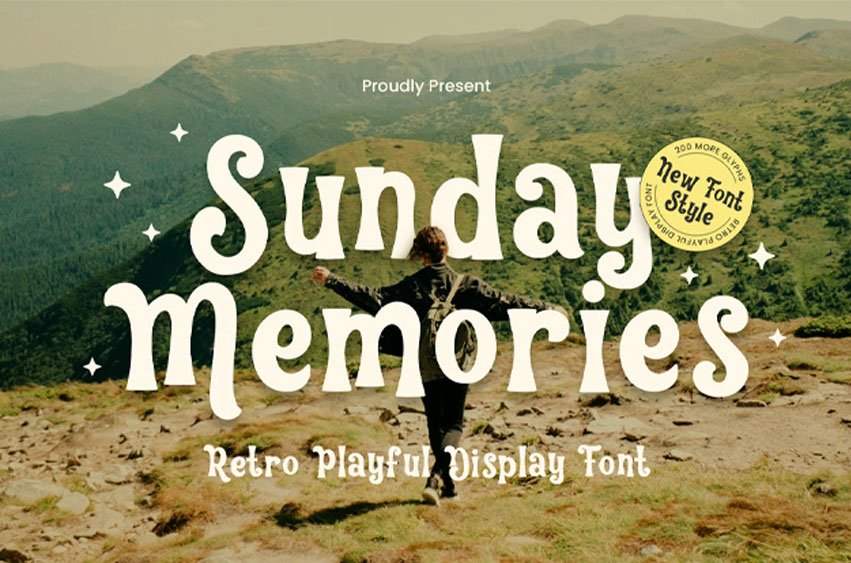
Sunday Memories Font Quotes Font is a cute, unique, and fun display font designed to bring warmth and joy into every word. Inspired by cozy Sundays and sweet memories, this font has playful letterforms that feel friendly, relaxed, and full of personality. It’s perfect for expressing emotions, positivity, and meaningful messages through quotes or creative text.
With its charming display style, Sunday Memories works beautifully for quotes designs, invitations, greeting cards, and inspirational messages. The font’s balanced curves and cheerful shapes make every sentence feel alive, making it ideal for designs that want to feel personal, uplifting, and memorable.
This font is also a great choice for seasonal and handmade projects. It fits naturally with themes like thanksgiving, autumn vibes, crafts, and DIY creations. Whether you’re designing stickers, journals, planners, posters, or wall art, Sunday Memories adds a soft and joyful touch that stands out effortlessly.
Designed with versatility in mind, Sunday Memories is perfect for lettering projects, SVG designs, Cricut cuts, and other digital or print applications. Its easy-to-read yet decorative style ensures your designs stay clear while still looking fun and creative across many uses.